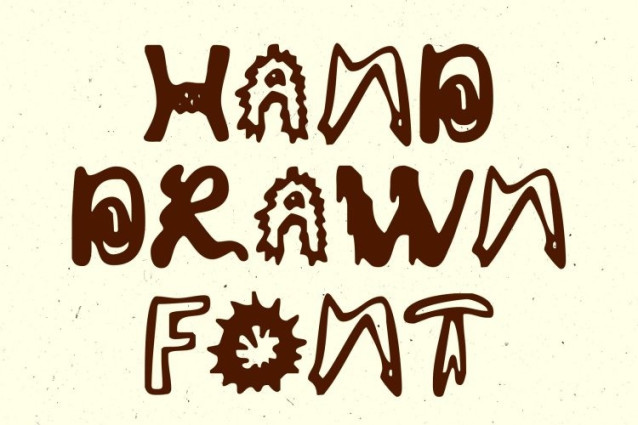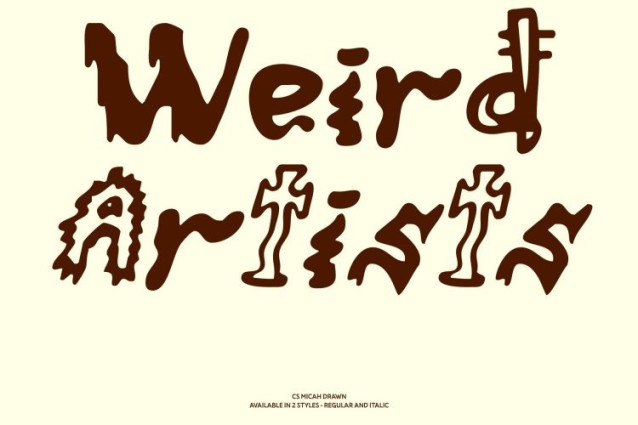
CS Micah Drawn Font
CS Micah Drawn Font This is a whimsical display font filled with charm, creativity, and a distinctive drawn texture. Its quirky, playful, and fantasy-inspired letterforms feel lively and imaginative, giving each word a handcrafted personality that brings designs to life.
Quirky Shapes with Expressive Hand-Drawn Detail
Featuring artistic curves and unconventional forms, this font transforms ordinary text into a joyful visual experience. The subtle irregularities of the drawn effect add movement and spontaneity, making every character feel expressive, organic, and full of energy.
Playful, Friendly, and Inviting Design
The whimsical style of this font creates an approachable and engaging tone while maintaining artistic flair. Its quirky shapes invite interaction and curiosity, making designs feel fun, warm, and memorable without sacrificing clarity.
Perfect for Fun Branding and Creative Projects
This font shines in playful branding, posters, packaging, children’s visuals, and imaginative creative projects. With its combination of originality, hand-drawn charm, and playful spirit, this font helps designers craft visuals that feel magical, lively, and full of personality.